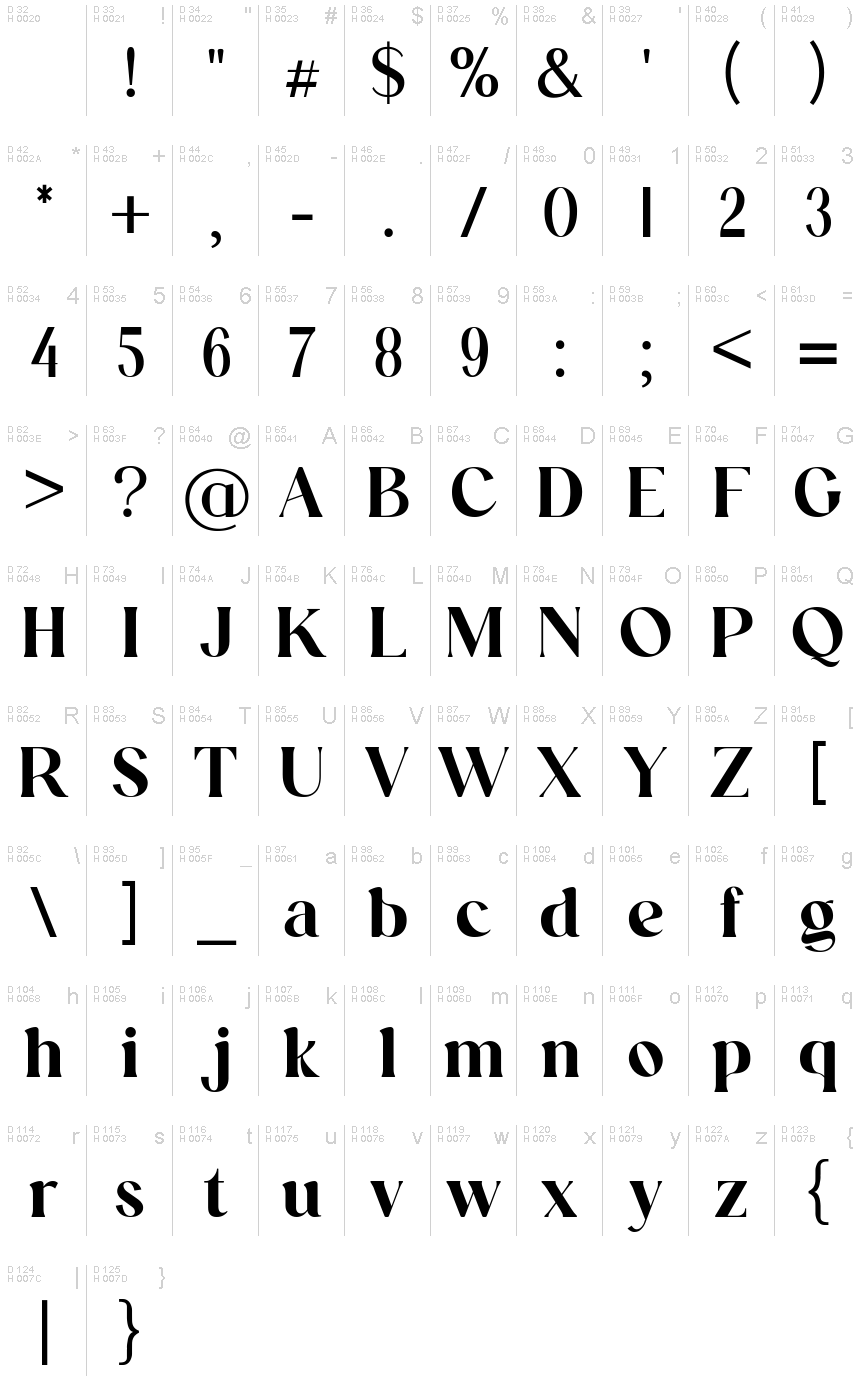
Funtonalie
Funtonalie, a striking serif font crafted by UI Creative, commands attention with its bold, assertive presence. The typeface's clean, geometric lines and confident strokes convey a sense of authority and sophistication, making it an ideal choice for projects that demand a strong, impactful visual identity. Its robust nature lends itself well to headlines, logotypes, and editorial designs, where it can serve as a focal point that captivates the audience.
This versatile font's versatility extends beyond its aesthetic appeal. Its legibility and readability make it a practical selection for a wide range of applications, from print materials to digital interfaces. Funtonalie's adaptability allows designers to employ it seamlessly in branding, signage, and even book design, where its authoritative presence can elevate the overall visual experience.